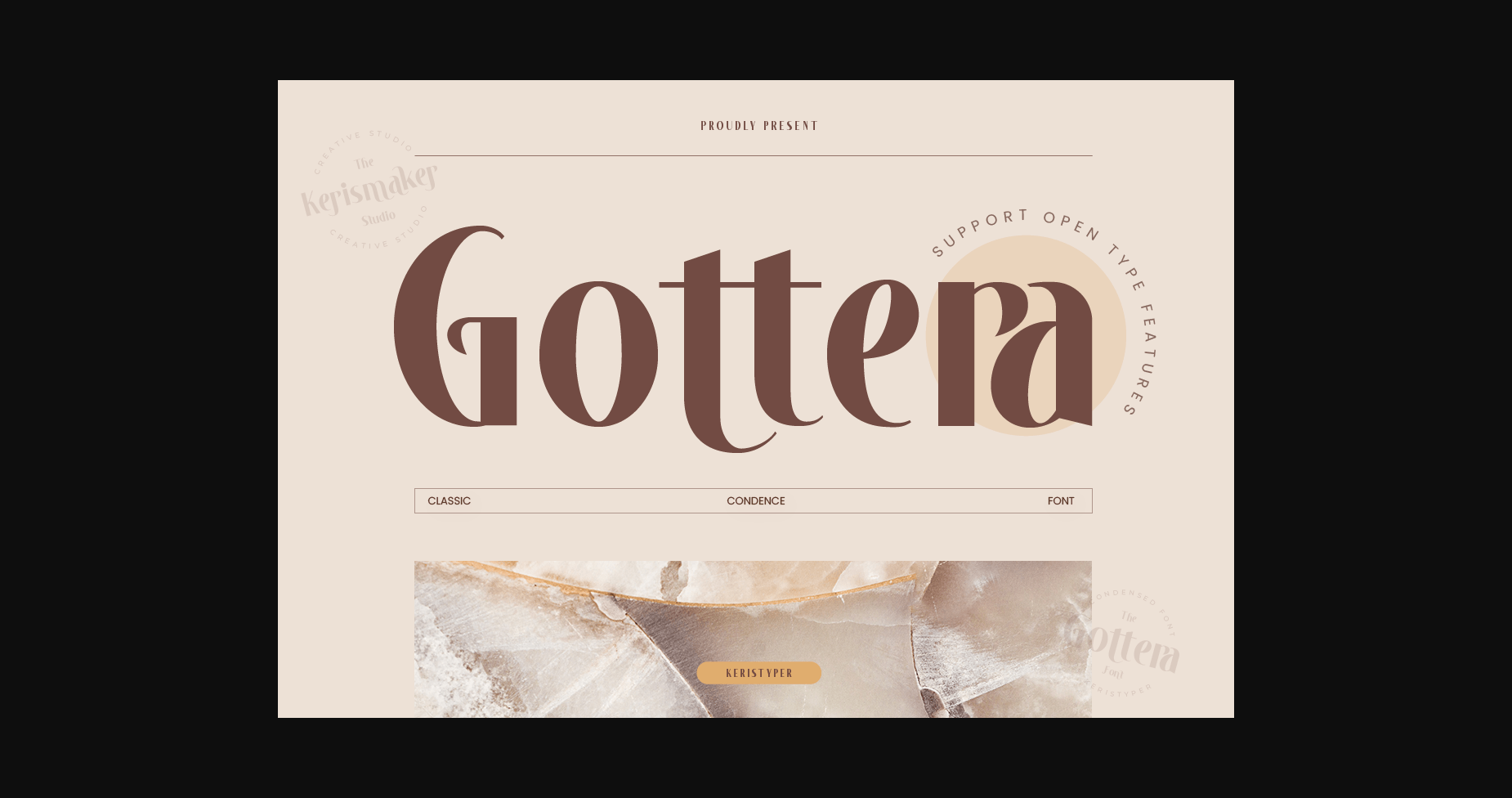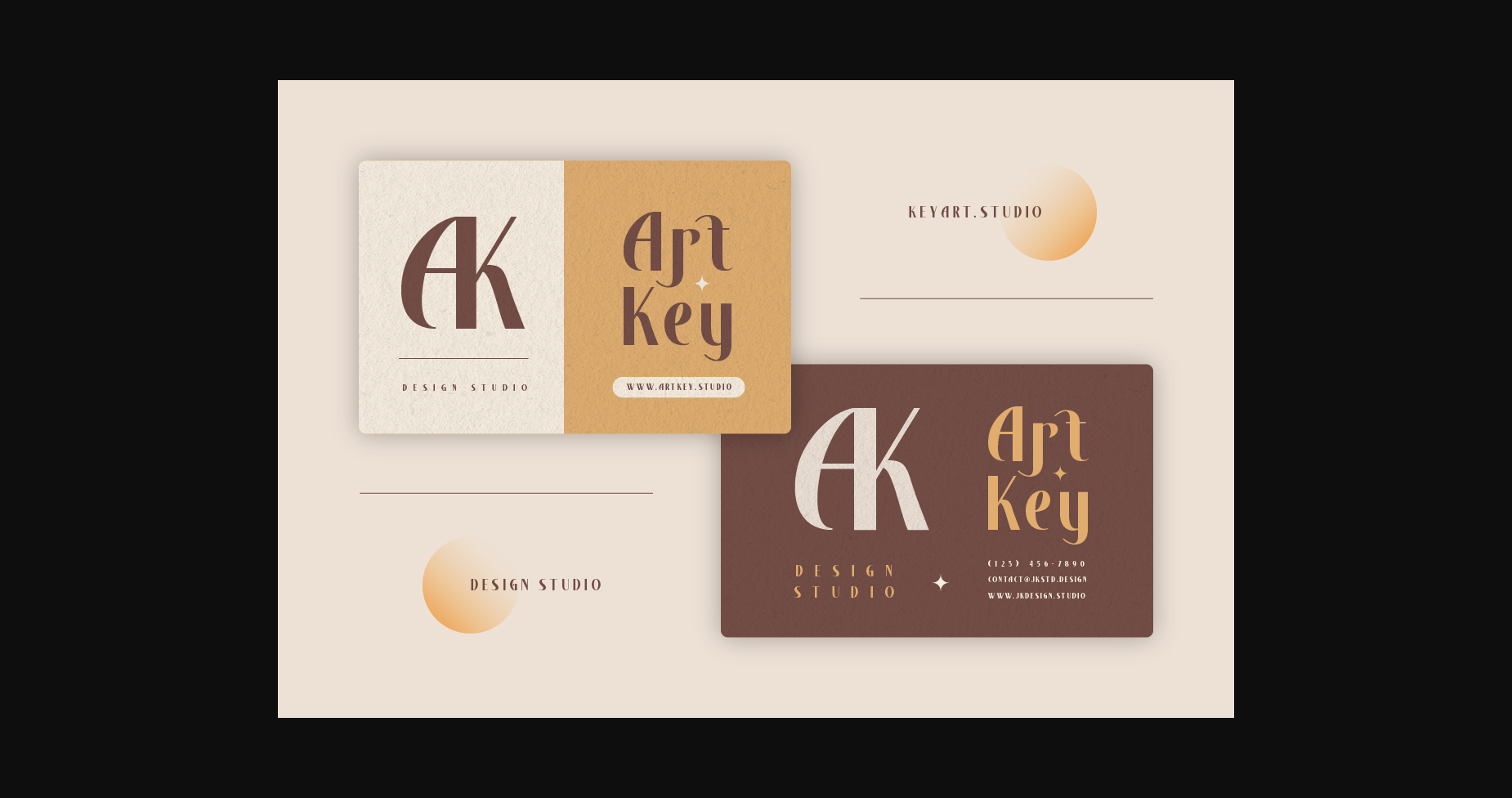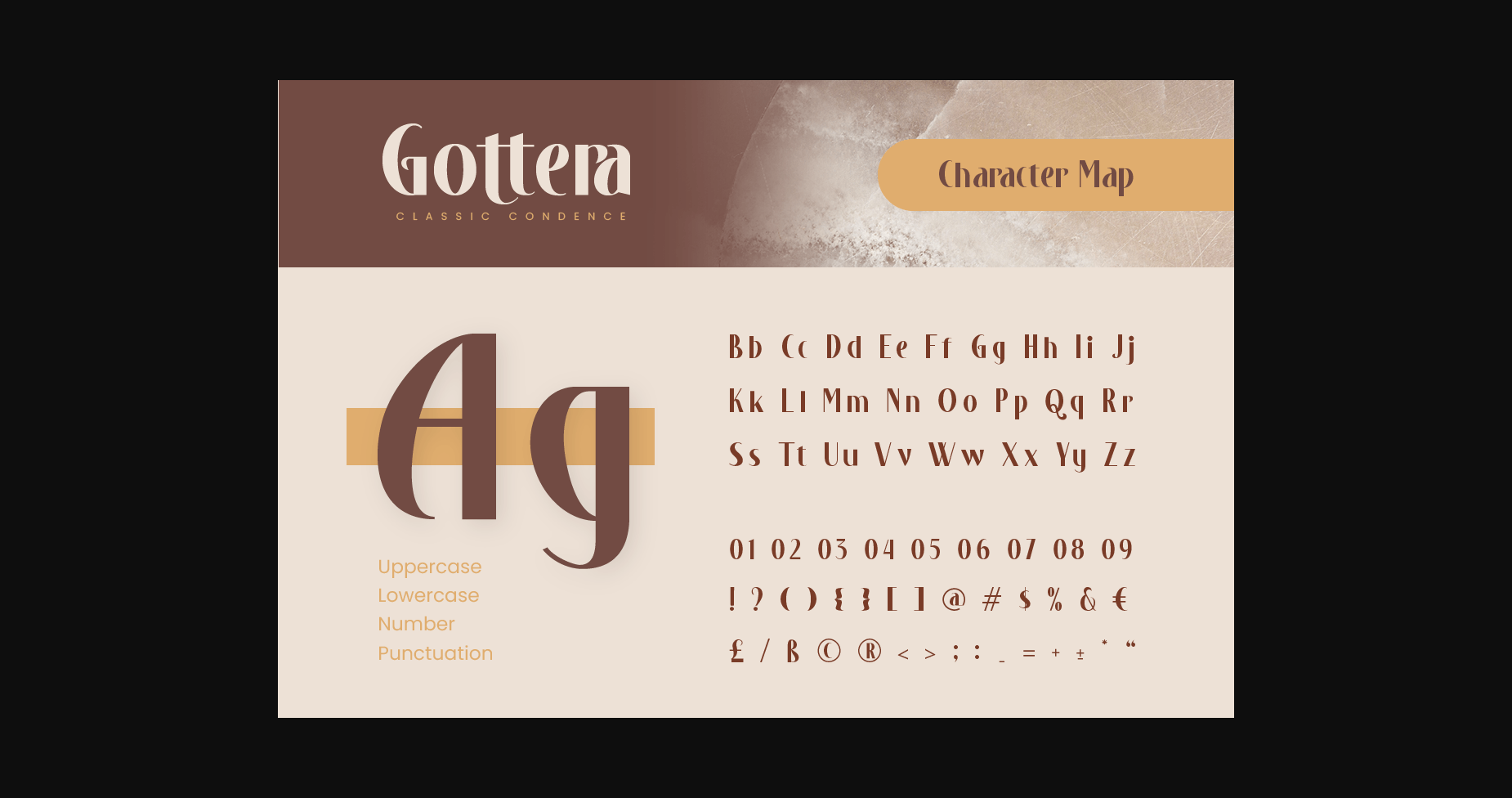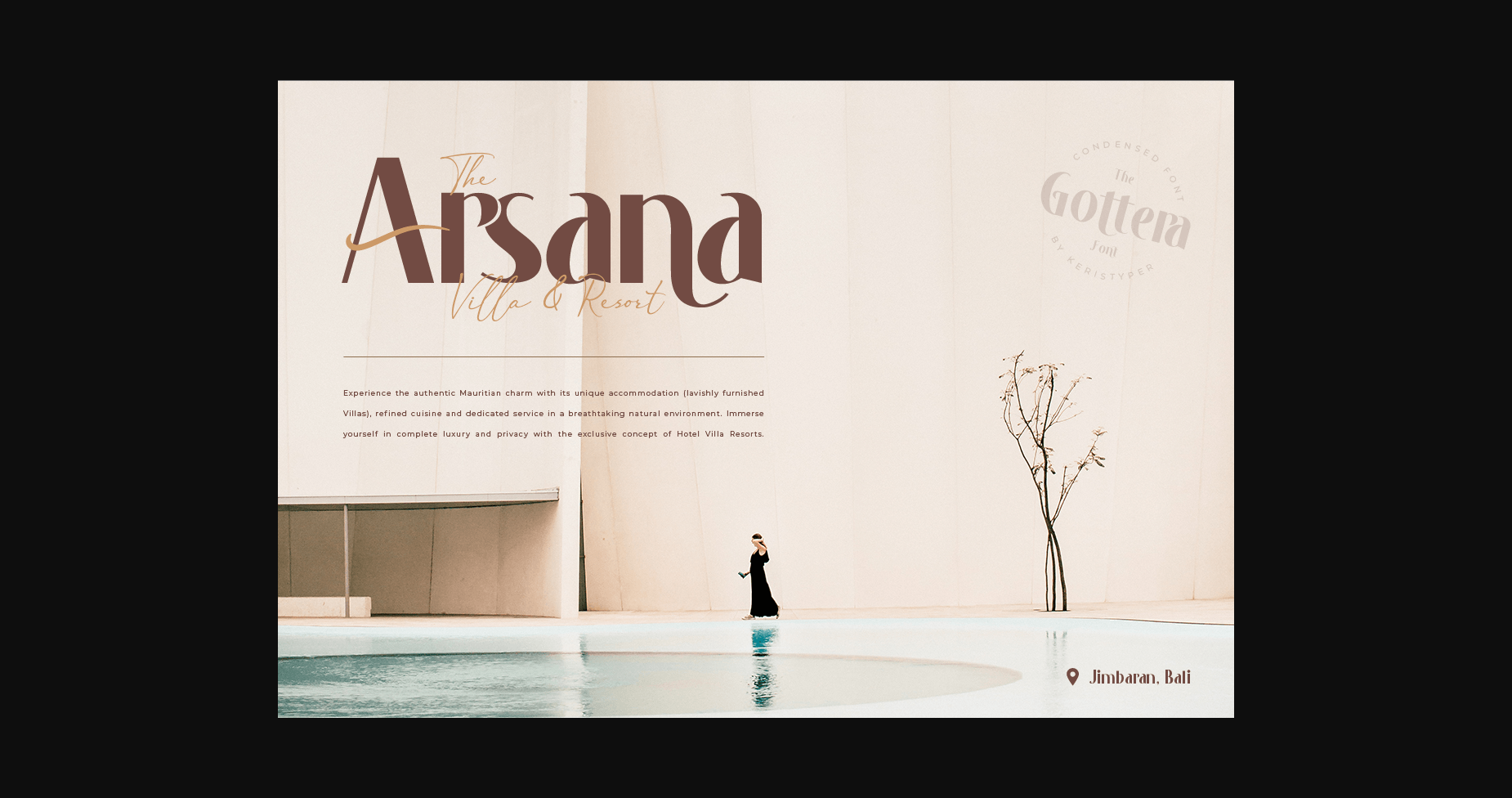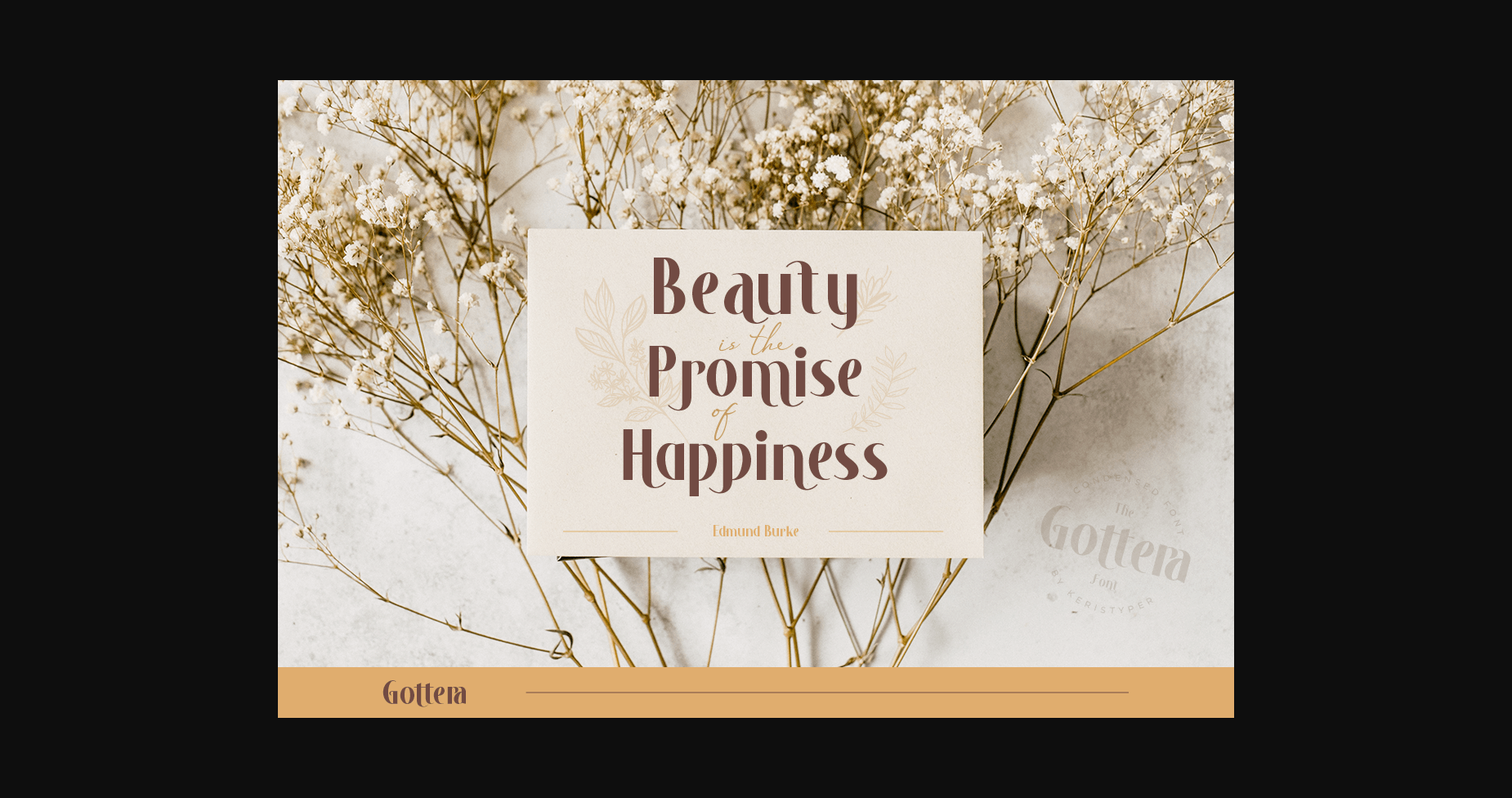
About Gottera Font
Gottera is a condensed sans serif font with visual elegance and smooth curves. Trendy and stylish, this font will elevate each of your creations.